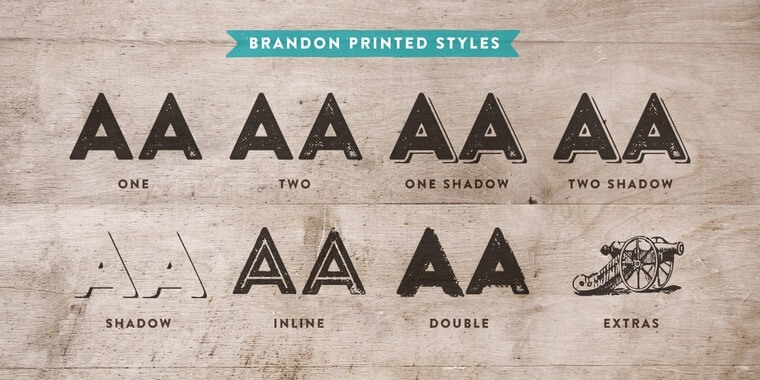
The Brandon Printed Font Family is a sans-serif typeface, which was created by a designer named Hannes von Döhren and released by HVD Fonts.
Brandon Printed Font looks like it was made using wooden blocks a long time ago. It doesn’t have any fancy decorations on the letters. It has a worn-out, printed appearance with different styles for each letter.